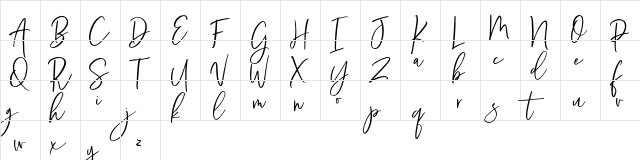
Sunydale demo Regular
Design Context for Sunydale demo Typeface
Sunydale demo is a composed and adaptable typeface that performs quietly and consistently across a wide range of design contexts.